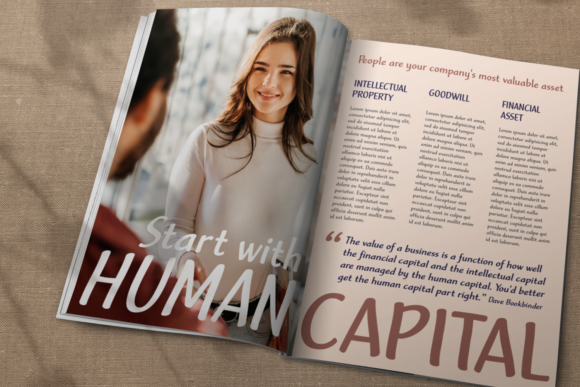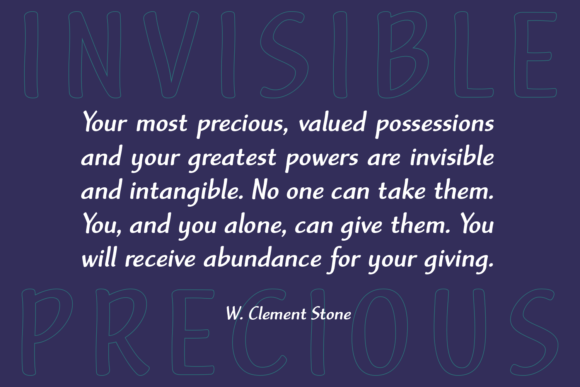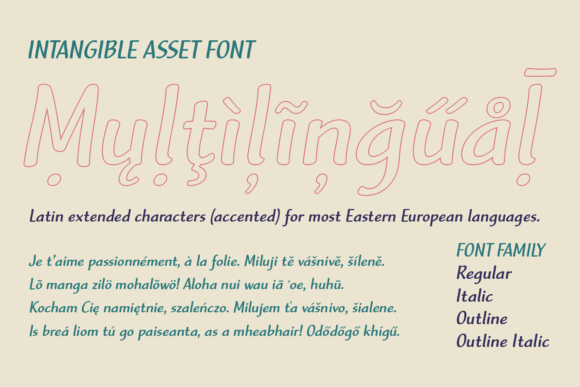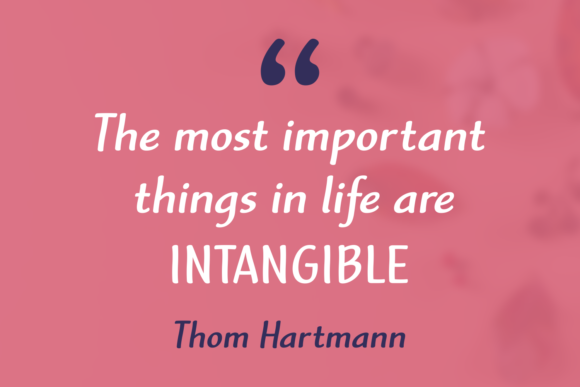
About Intangible Asset Font
Introducing “Intangible Asset,” a simple and readable handwritten font designed specifically for chalkboard quotes and teaching materials. With its authentic and natural appearance, this font adds a personal and realistic touch to your designs, making them visually engaging and relatable.
Intangible Asset is crafted with legibility in mind, ensuring that your messages and quotes are clear and easy to read, even from a distance. Its simplicity and clean lines make it suitable for various educational materials, including classroom posters, worksheets, handouts, and presentations. Whether you’re creating teaching aids or inspirational quotes for your students, Intangible Asset provides a genuine handwritten feel that brings warmth and authenticity to your educational resources.
The font’s organic and hand-drawn style adds a touch of personality, making your designs stand out while maintaining a professional look. Its natural flow and consistent letterforms create a harmonious visual appeal that captivates and engages your audience. Whether you’re designing for a classroom, a workshop, or an online platform, Intangible Asset’s simplicity and readability ensure that your message is effectively conveyed.
The authentic appearance of Intangible Asset makes it a versatile font for a wide range of applications beyond teaching materials. You can use it for signage, menu boards, event posters, and any design that calls for a genuine handwritten touch. Its versatility allows you to experiment and explore different design ideas while maintaining a consistent and approachable aesthetic.
Additionally, Intangible Asset is designed to be compatible with chalkboard backgrounds, mimicking the texture and feel of writing on a chalkboard. This gives your designs a nostalgic and vintage touch, evoking a sense of nostalgia and familiarity.
In summary, Intangible Asset is a simple and readable handwritten font that adds an authentic and realistic touch to your chalkboard quotes and teaching material designs. Its legibility, natural flow, and compatibility with chalkboard backgrounds make it a valuable asset for educators, designers, and anyone looking to create engaging and relatable visual content. Embrace the genuine charm of Intangible Asset and elevate your designs to new levels of authenticity.